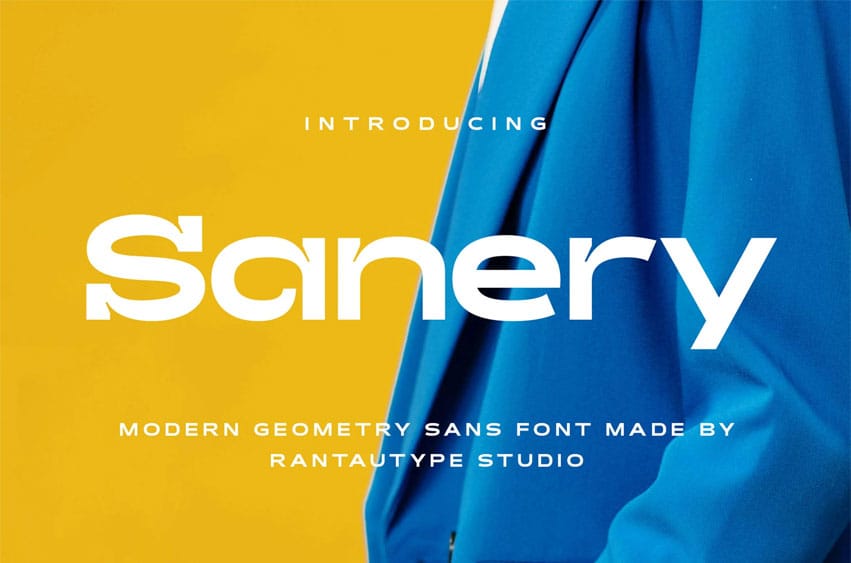
Sanery Font is A modern geometry sans font is a typeface that reflects clarity, precision, and balance through its clean construction and inspired shapes. The appeal of modern geometry sans fonts lies in their versatility.
Sanery is a perfect choice for any creative endeavor, chic, lifestyle design, such as logotype, advertisements, watermark on photography, stationery, branding project, display and magazine, invitation, corporate brand, product design, label, business project, and many other projects with a modern touch.